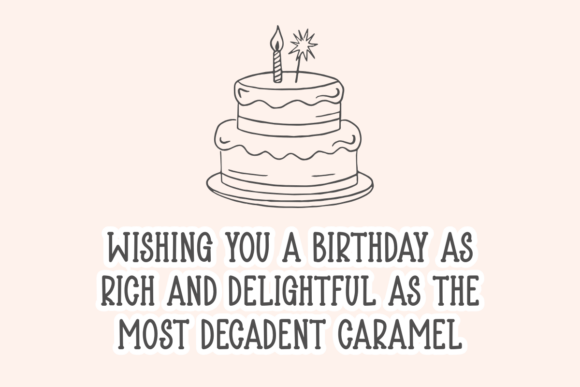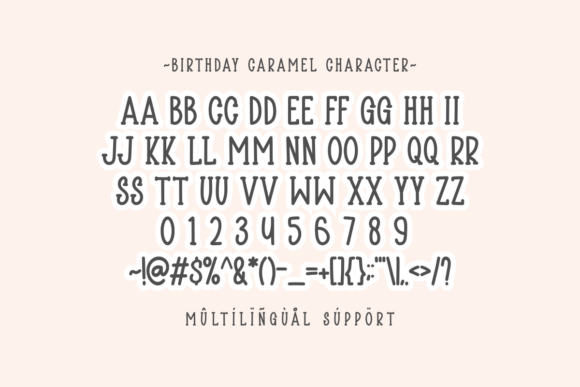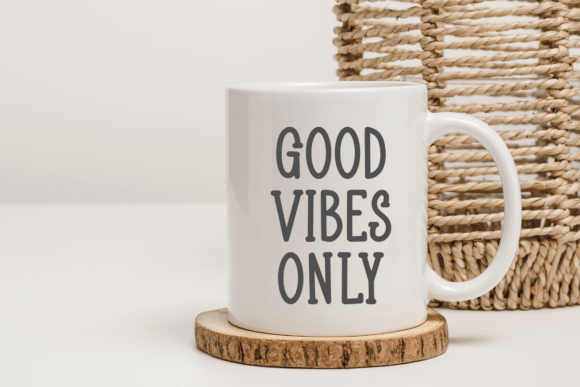
Birthday Caramel Font
Birthday Caramel is a playful slab serif font that brings a cheerful and friendly vibe to your creative projects. With its rounded edges and bold presence, this font is perfect for birthday invitations, kids’ party decor, product packaging, greeting cards, posters, and more.